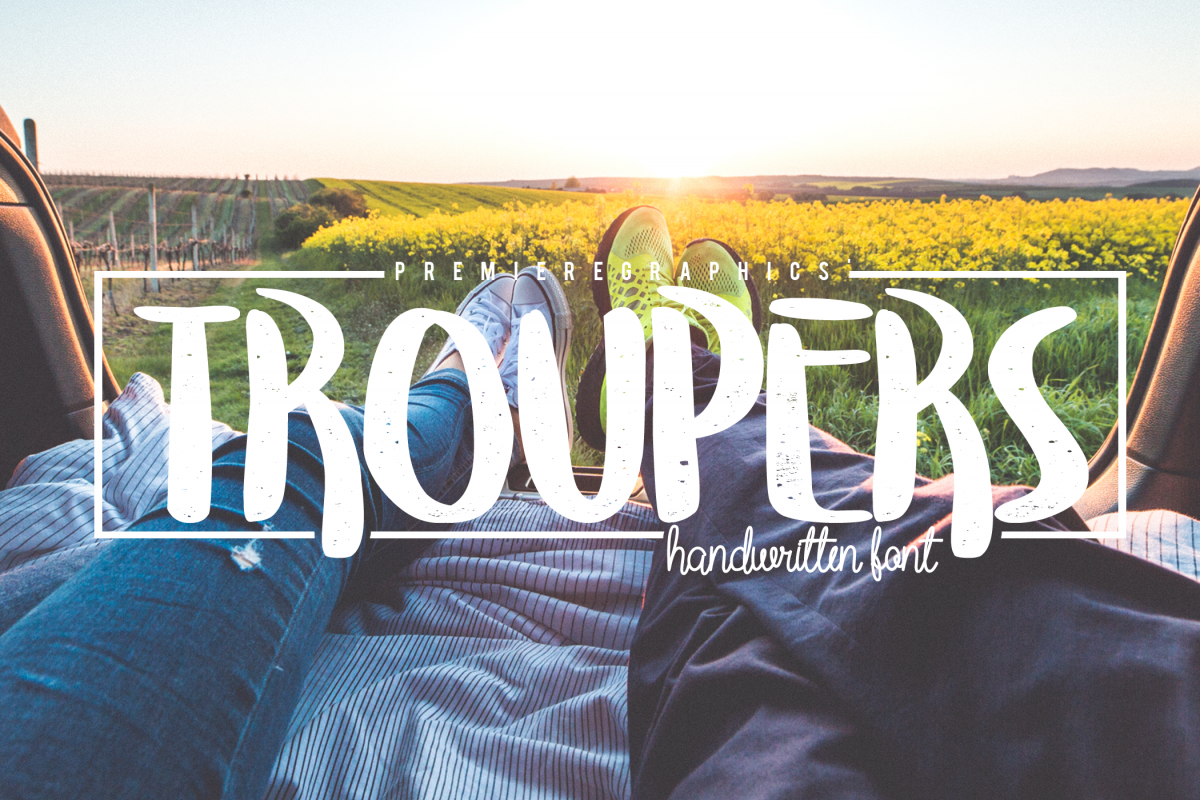
Troupers
Troupers font is your feel-good formula for a better graphic design. It is carefully handwritten to make a friendly and playful, readable font. This font is very great for logo designs, photography, packaging, identity and branding, billboards, and to any graphic design you can imagine.